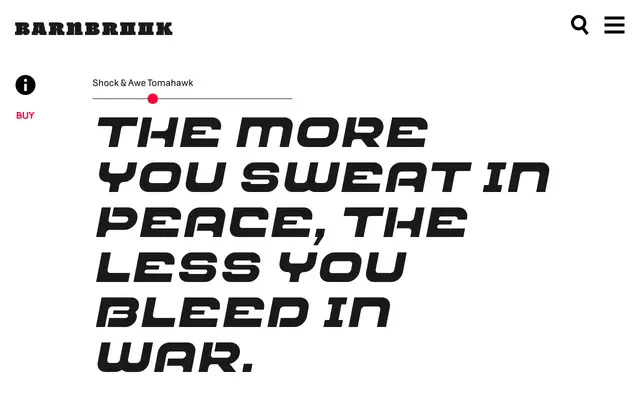
Shock and Awe
A two-face display family drawn from stencil lettering on military hardware, one sourced from the B-29 that dropped the atomic bomb on Hiroshima, the other from the Tomahawk cruise missile.
Enola Gay takes its letterforms from the nose cone of the B-29 Superfortress bomber used in the 1945 Hiroshima attack, while Tomahawk is derived from fuselage stencilling on the cruise missile deployed in both the 1991 Gulf War and the 2003 Iraq invasion. Barnbrook positions both faces explicitly as a provocation, inviting the design community to examine the ethics of letterform-making in contexts of mass violence. The conceptual weight of the source material is inseparable from how these faces should be used.
A display family derived directly from military stencil lettering found on aircraft and missiles; the industrial, utilitarian source material places it firmly in the display/stencil category.